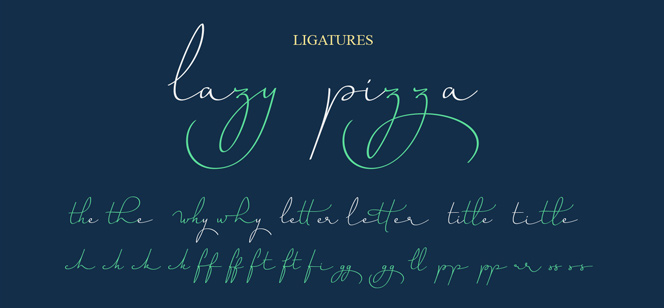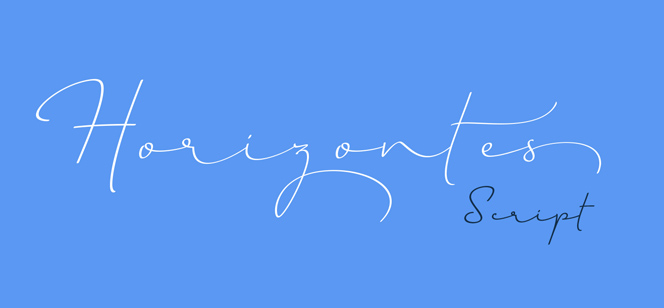
Horizontes Script
Horizontes Script is created by Panco Sassano in cooperation with Sudtipos’ top typographer Ale Paul. It’s a spontaneous and elegant calligraphic typeface written with less dynamic in pen width but with a lot of originality and charm in every single detail. Horizontes Script is very generous in width featuring long connections and more space between letters flowing from one to another like calm weaves of the sea against the blue Horizon.
Being very relaxed and natural Horizontes Script is ideal for poetry, songs, wedding invitations, and greeting cards as well as for short texts, titles, food packaging and wine labels. Using Open Type software will unlock a wide set of extra symbols like fancy ligatures, initial letters, terminals and beautiful alternates.
Transmitting the feeling of warmth and humanity Horizontes Script will make your design unique with authentic hand-made look.
Designers: Panco Sassano, Alejandro Paul
Publisher: Sudtipos